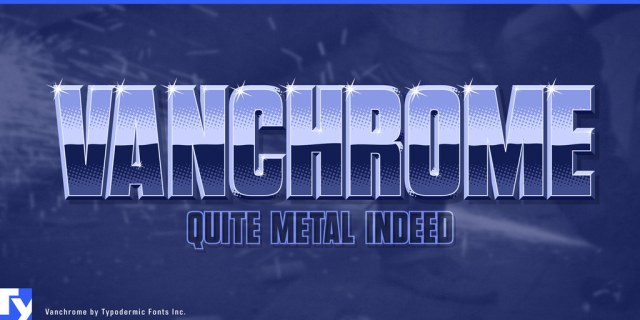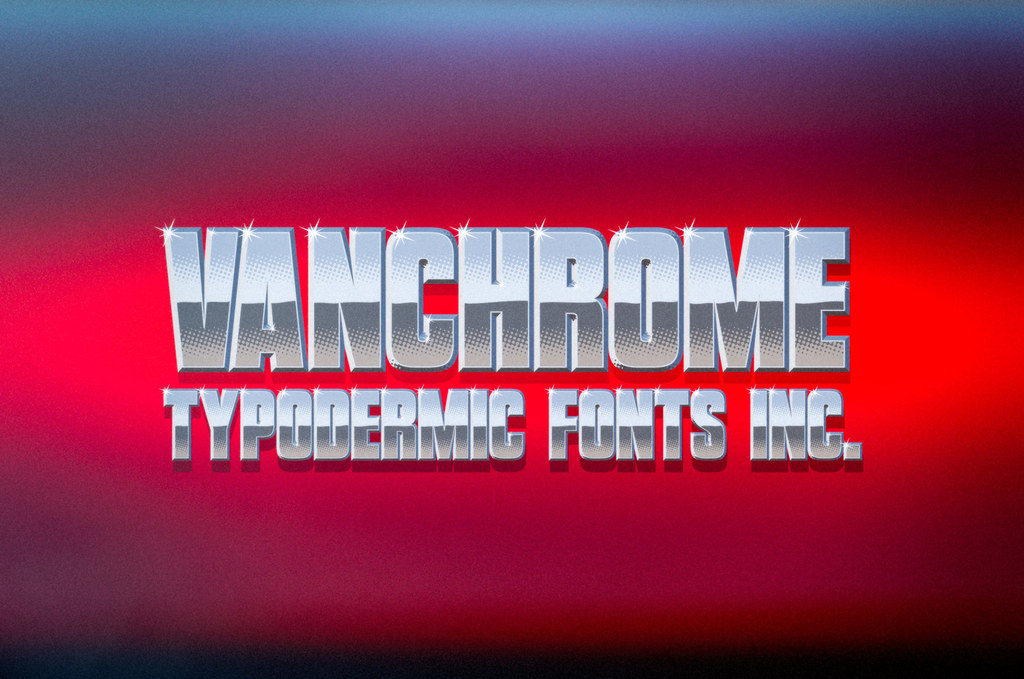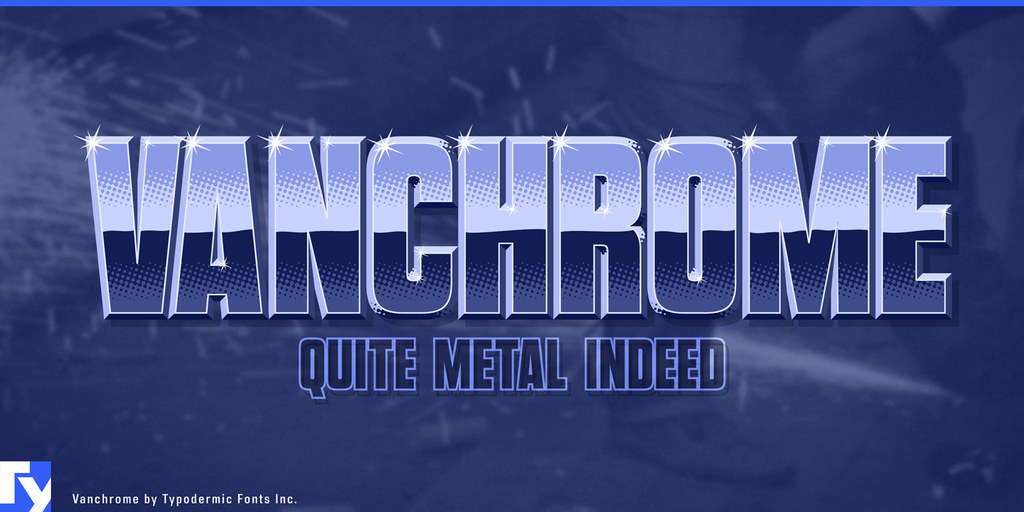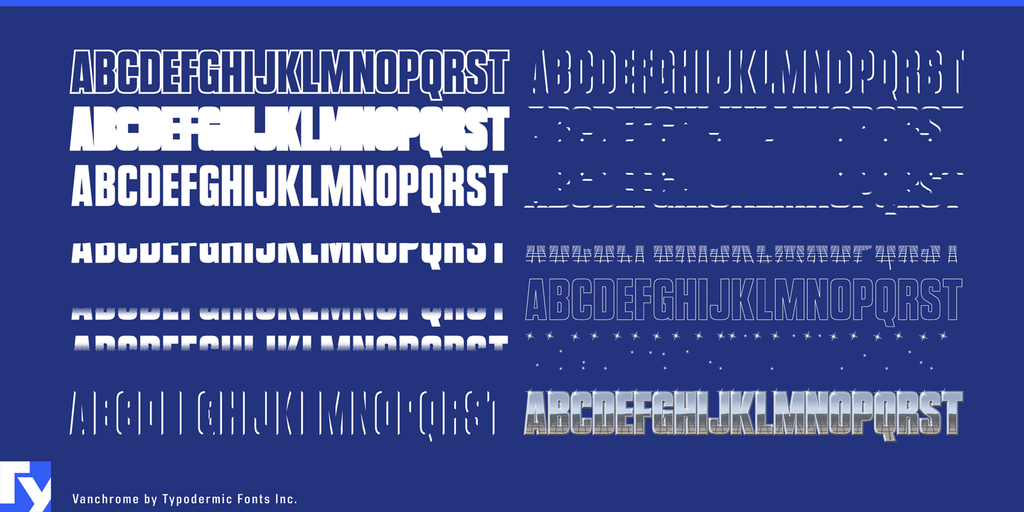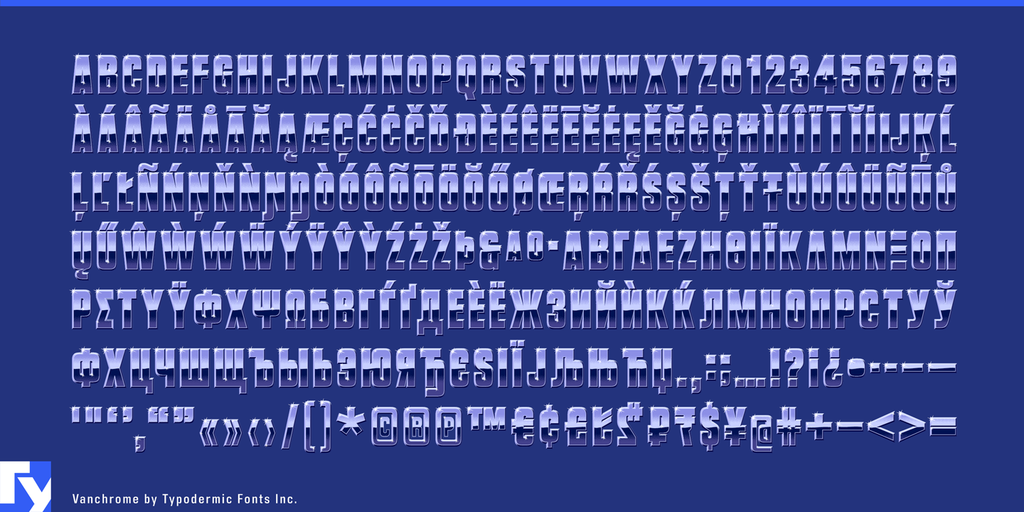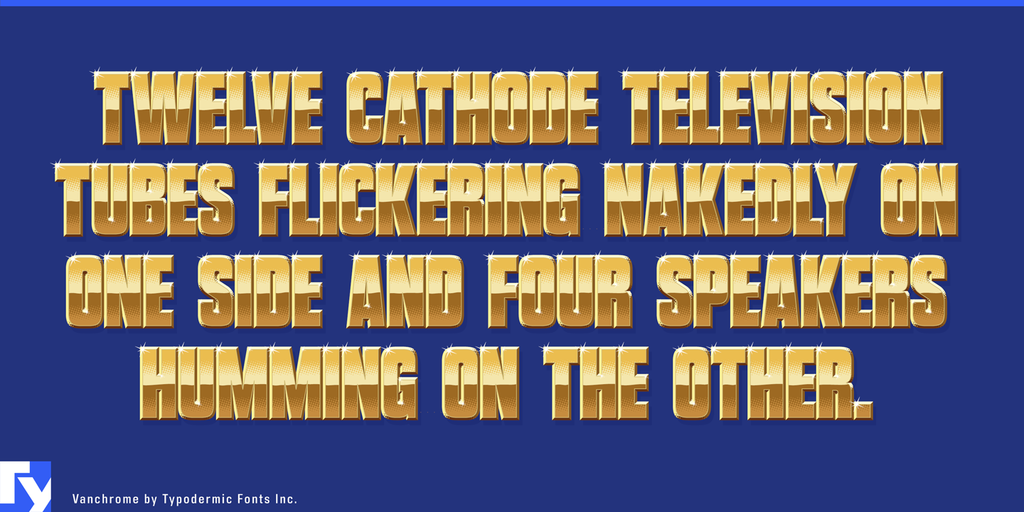
Vanchrome Font Family
Vanchrome is a compact sans-serif headliner with chromatic layers. Create a layer in your design application, copy the layer, change the style, change the colors. Some applications such as Photoshop might need manual vertical alignment so cross-hair in the ◊ character position has been included. Due to the way Vanchrome’s bevel shading is designed, the Left and Right bevels should be placed under the Up and Down bevels. For a classic chrome effect, try the following order: Back, Front, Horizon, Ground, Sky, Left, Right, Up, Down, Grid (optional), Edge, Sparkle. Manually offset the back style to make a drop shadow. The Clear layer is designed to be used on its own or layered between Back and Sparkle layers. Greek and Cyrillic alphabets are included.